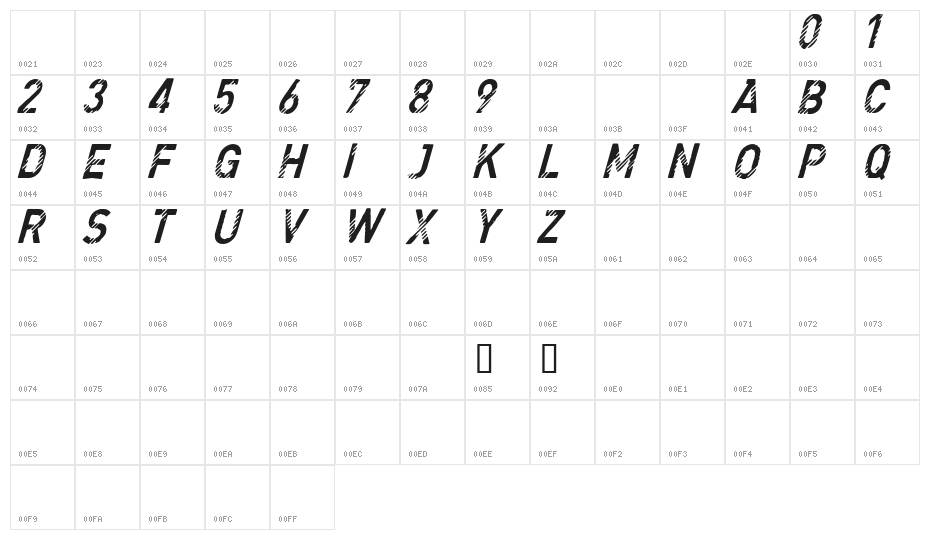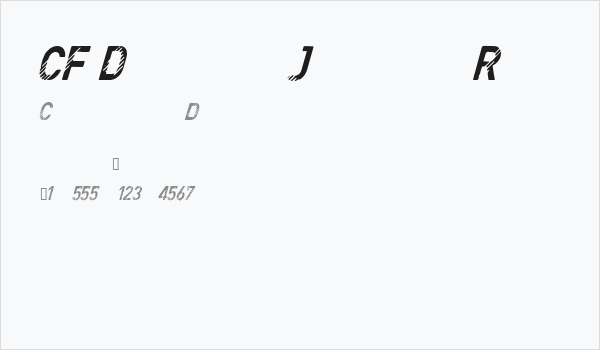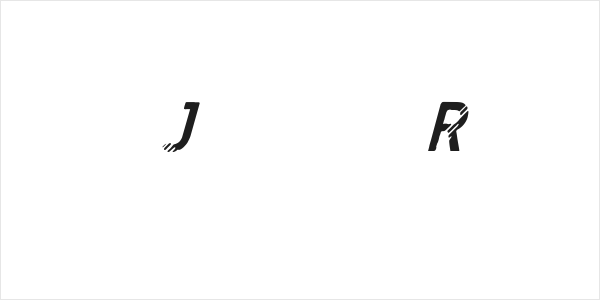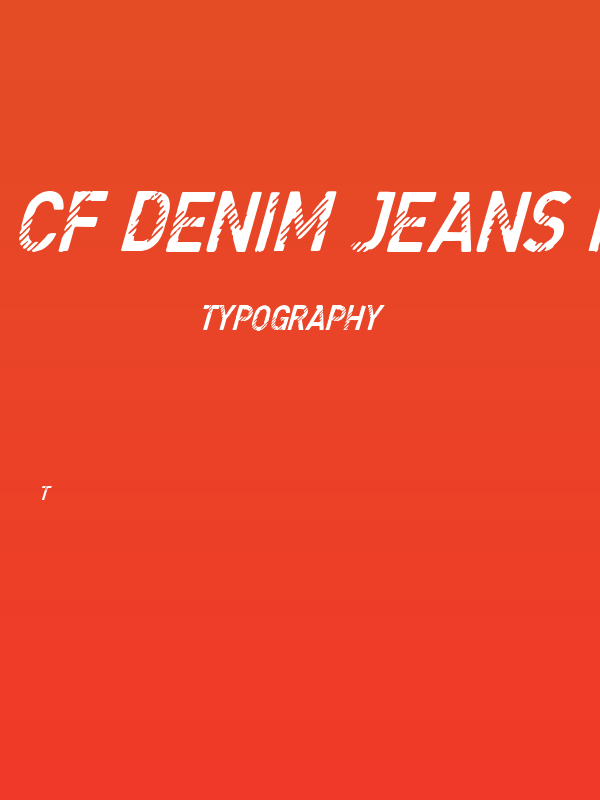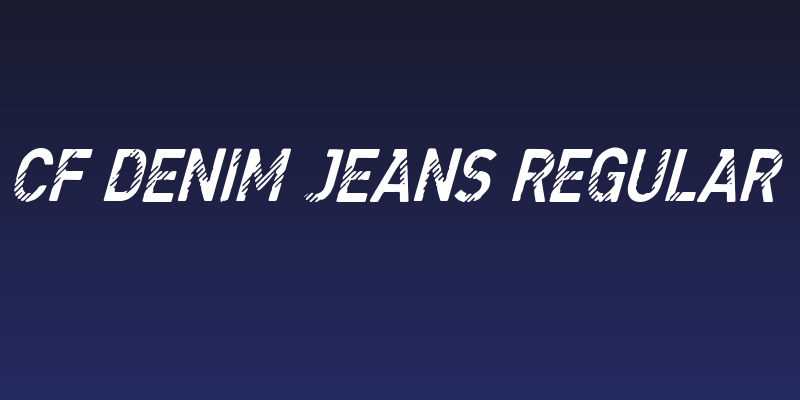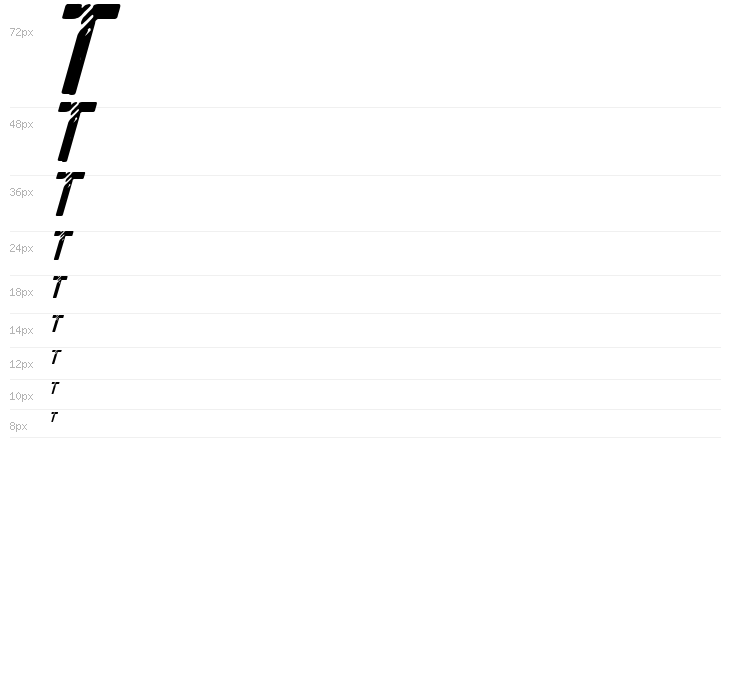
CF Denim Jeans Regular Font
CF Denim Jeans Regular Description
This font features a bold, dynamic style with a distinct diagonal stripe pattern running through each character, giving it a textured, denim-like appearance. The uppercase letters are strong and impactful, while the numbers maintain a consistent style, ensuring readability. The font's unique design makes it stand out, with a modern twist that adds a sense of movement and energy. It's perfect for projects that require a bold statement, combining both style and legibility.
| Proposed Projects | Ideal for fashion branding, poster designs, and any project needing a bold, stylish impact. |